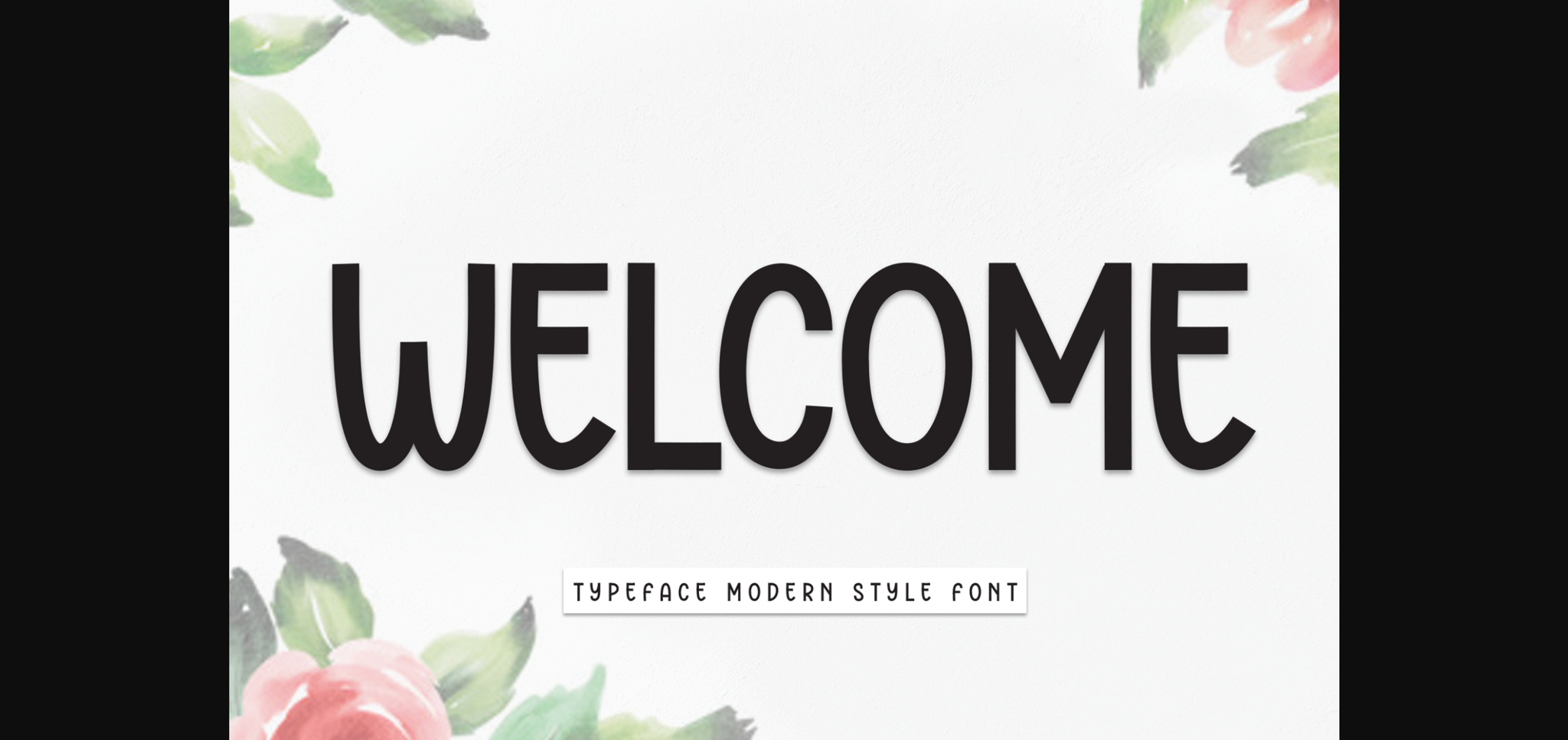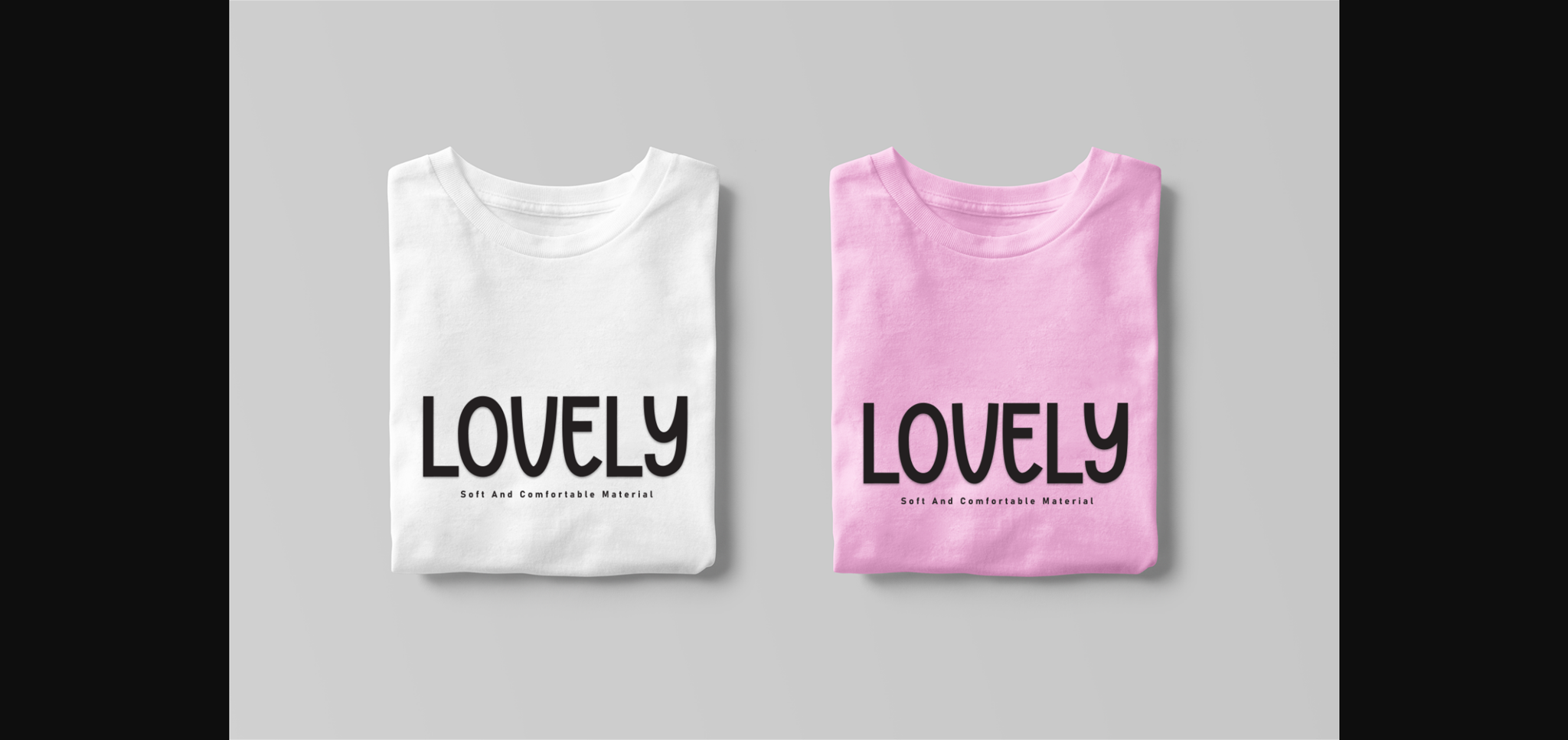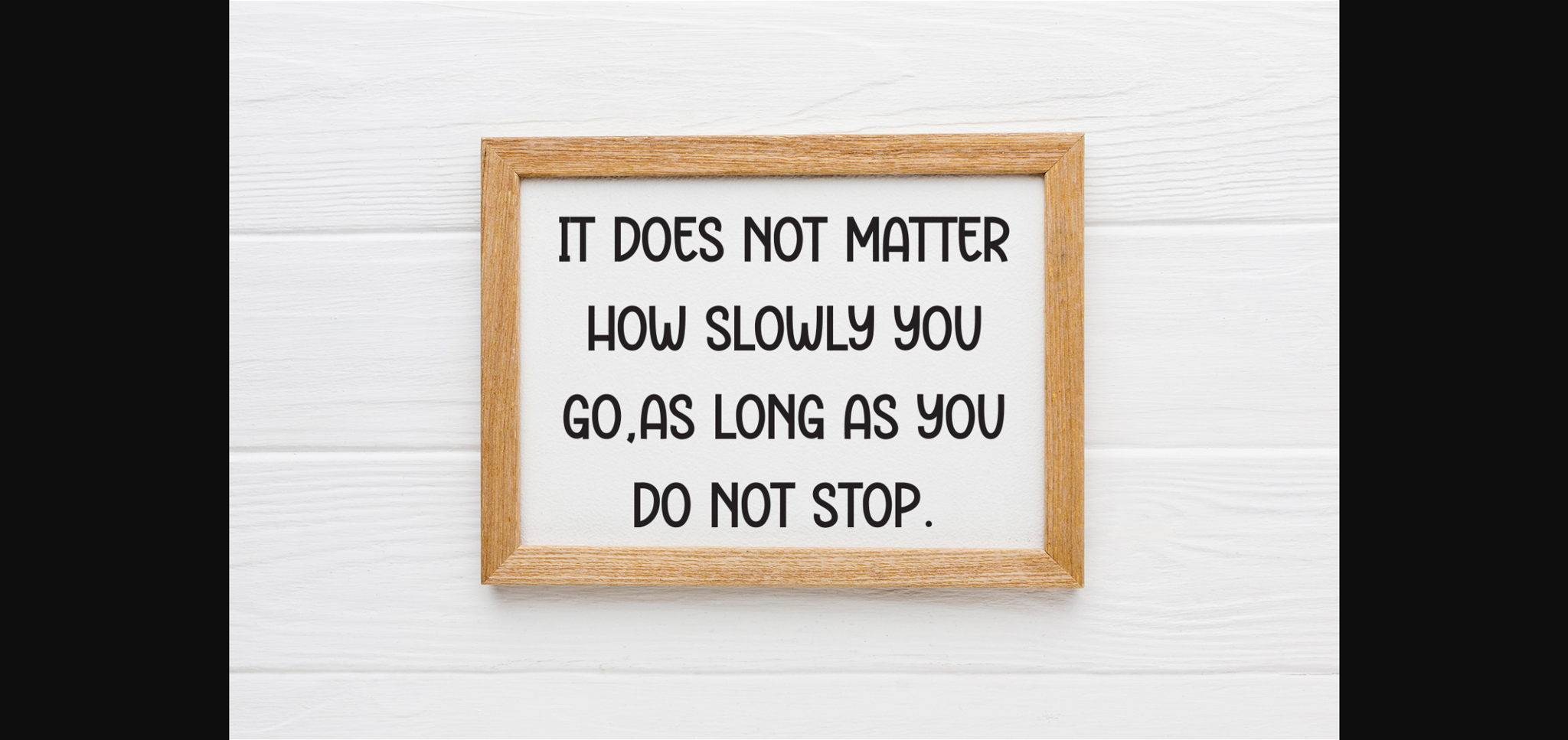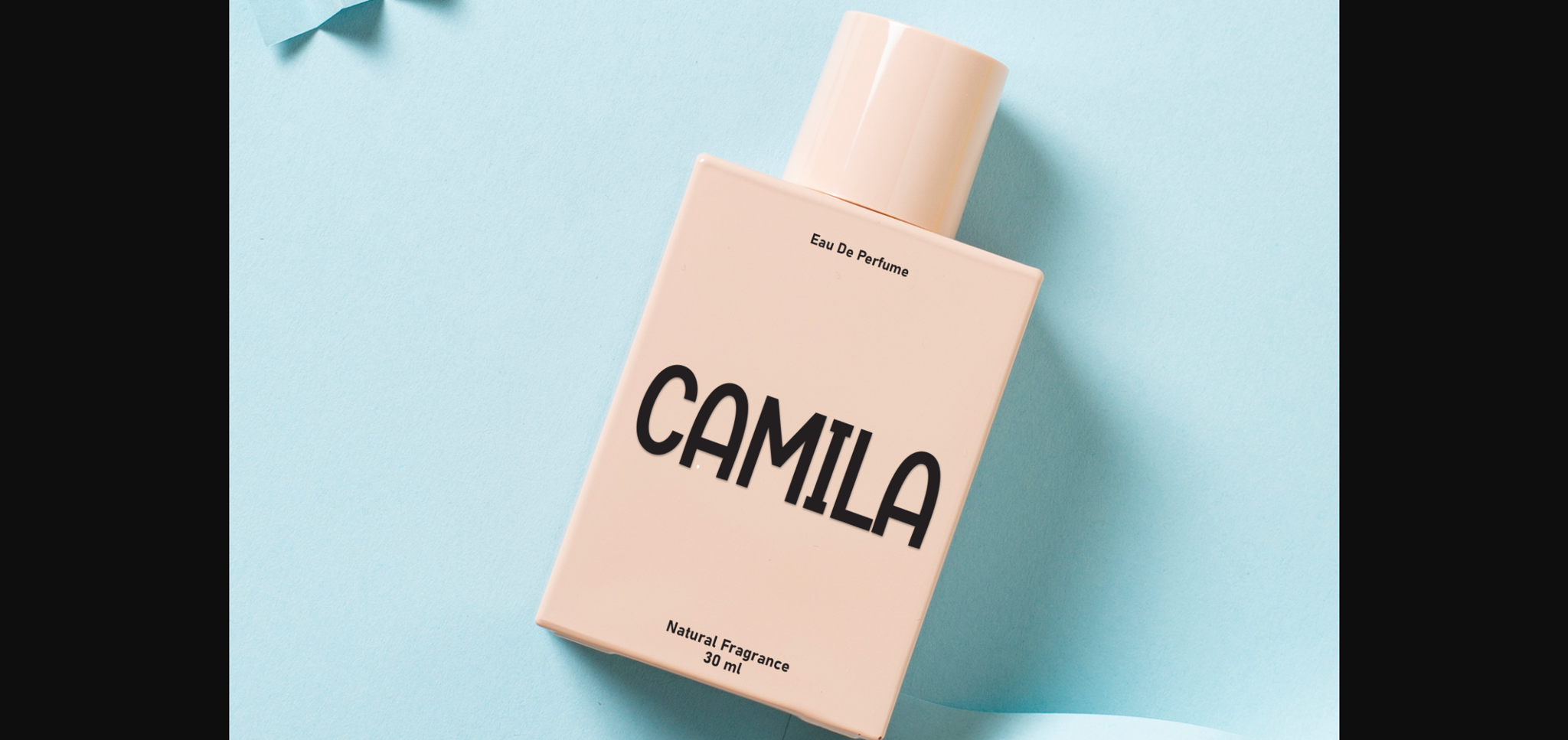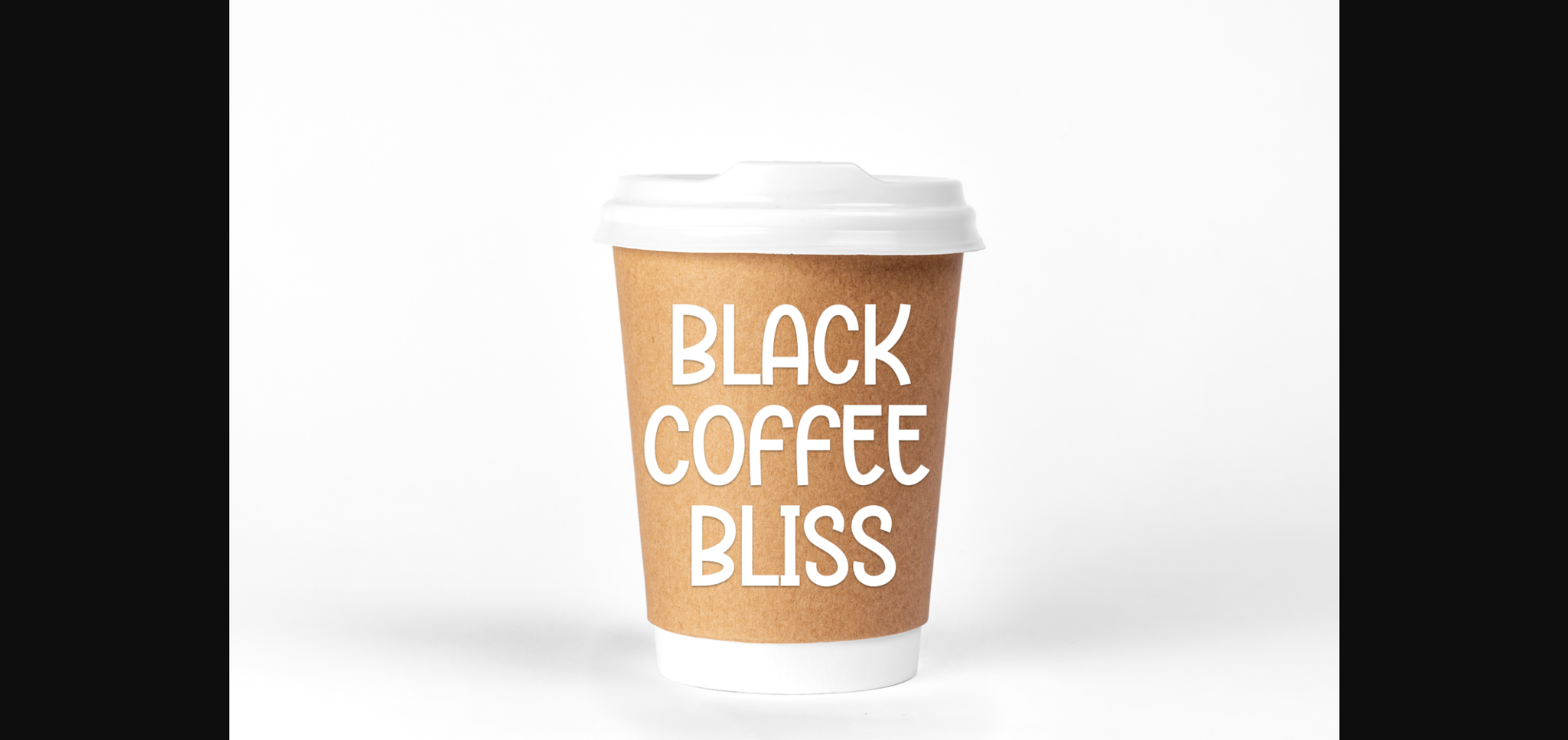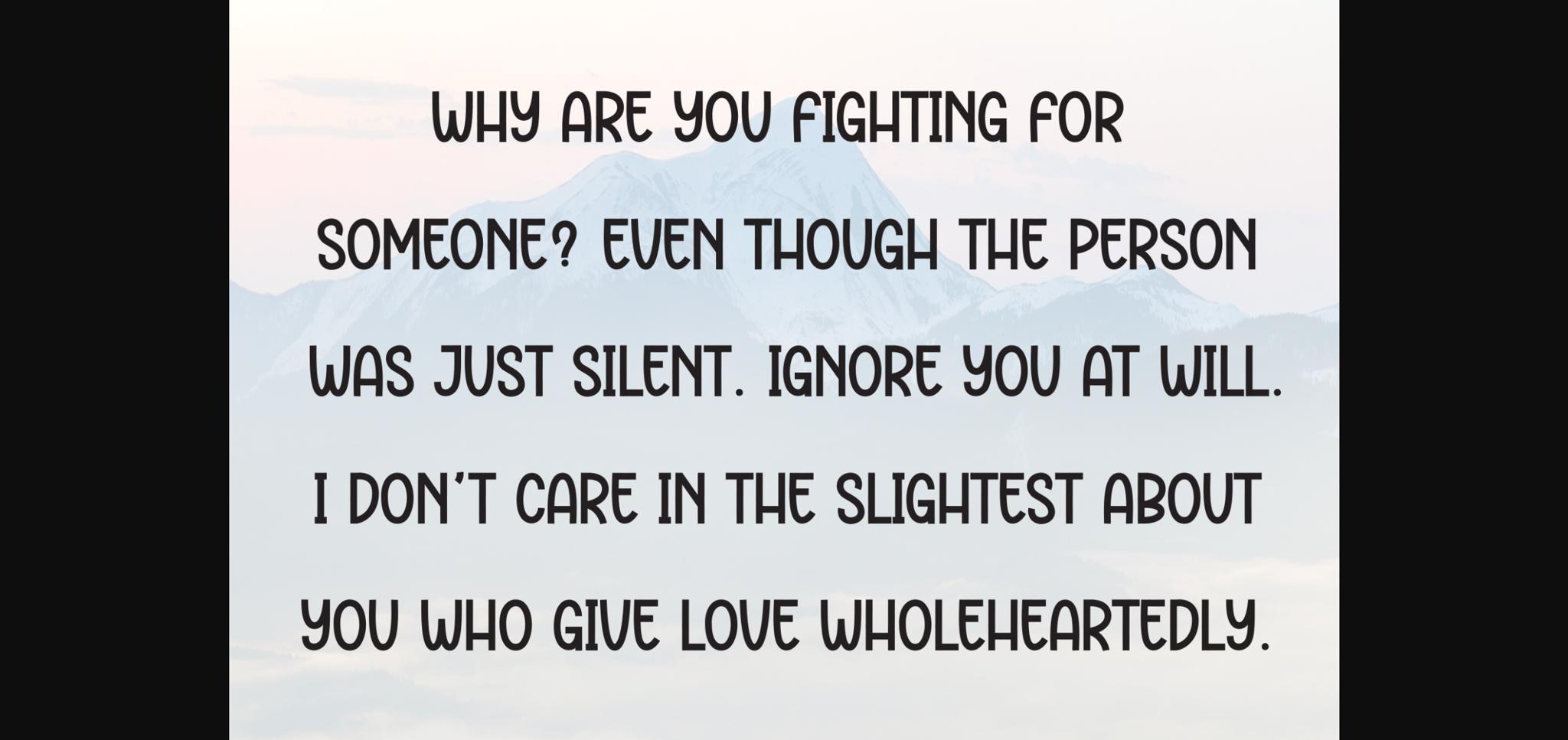
Welcome Font
About Welcome Font
Welcome is a sweet and friendly sans serif font. Cute and fun, this font is ideal for writing wedding invitations, cards, or any other design that might need a fun touch!